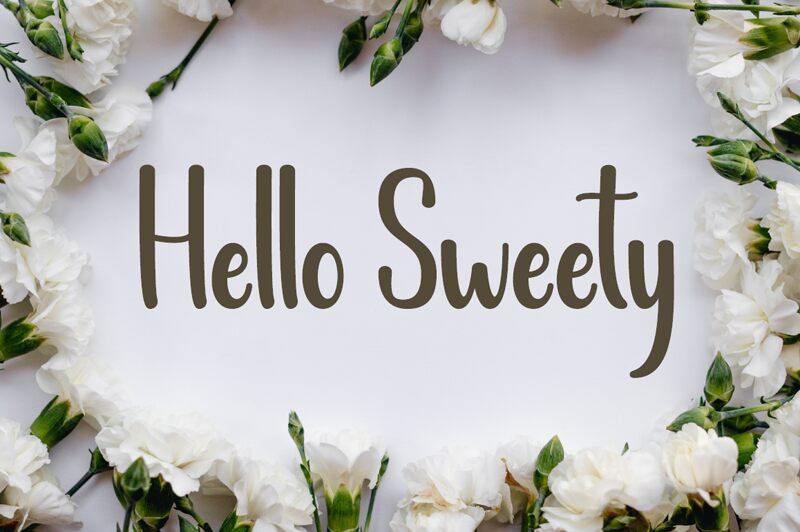
Hello Sweety
Hello Sweety, crafted by Hardiboy Design, is a font that exudes charm with its handwritten style, bringing a personal touch to every design. Its light strokes evoke the delicacy of fine penmanship, creating an intimate and inviting aesthetic. The playful yet elegant curves suggest a blend of sophistication with a friendly demeanor, making it suitable for designs that aim to be approachable yet refined.
Hello Sweety shines in contexts that require a touch of warmth and personality. It's perfect for invitations, greeting cards, branding materials for boutique businesses or any project looking to convey authenticity and heartfelt sentiment. This font embodies the artistry of handwritten expression in a digital form, welcoming viewers into a world crafted with care and attention to detail.